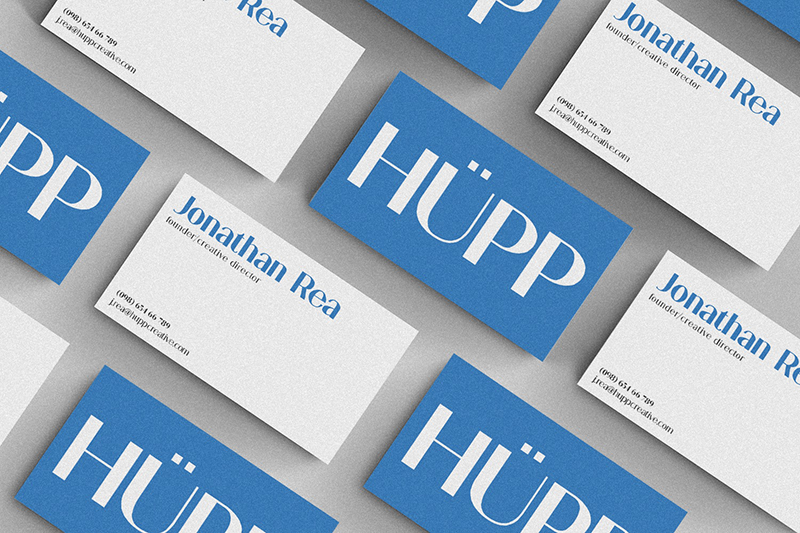
Preview and download Vaughan Font. Created by Wahyu Rahmawan in Basic Sans serif styles with 100% Free license.
Download Vaughan, a modern and balanced sans-serif font for FREE. Whether you�re working on brand identity, print, editorial design, or branding visuals, Vaughan is the perfect choice for any project that requires a professional and timeless look. Don�t miss out on this opportunity to elevate your designs with Vaughan � download it now for FREE. Want all the features? Get the full version now! https://go.factory738.com/bKfamq |